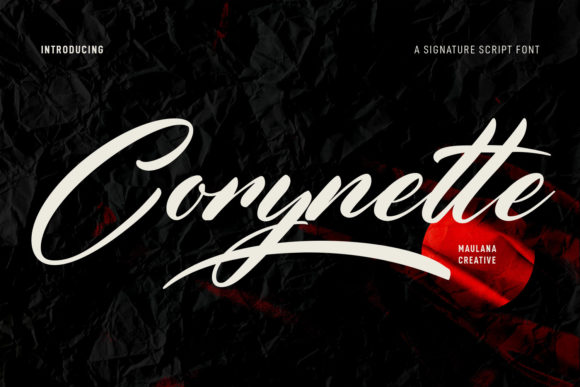
Welcome to the celestial realm of typography, where Corynette Font boldly descends from the heavens to redefine your creative horizons. Crafted by the visionary Maulana Creative, this script font transcends earthly boundaries, mirroring the vastness of the cosmos.
Immerse yourself in the ethereal dance of its strokes, gracefully flowing like stardust across the canvas. Marvel at the captivating contrast between thick and thin, reminiscent of constellations glimmering in the night sky. Witness the playful characters, each a unique celestial body, harmoniously aligned to form mesmerizing words.
Let your imagination soar as you explore a universe of typographic possibilities with Corynette Font. Its delicate ligatures and mesmerizing alternates ignite your creativity, allowing you to craft designs that shimmer with cosmic elegance. Whether you're crafting logos destined for the stars or weaving enchanting stories on web pages, Corynette Font is your celestial companion.
As you trace the curves of each letter, feel the cosmic energy coursing through you. Experience the joy of crafting designs that shimmer with interstellar brilliance. Corynette Font is not merely a collection of glyphs; it's a gateway to an uncharted realm of typographic wonders.
Embrace the cosmic artistry of Corynette Font and witness the birth of designs that mirror the grandeur of the cosmos. Let your creativity take flight, guided by the celestial beauty of this extraordinary script font. Ascend beyond earthly limitations and leave your mark on the digital universe.